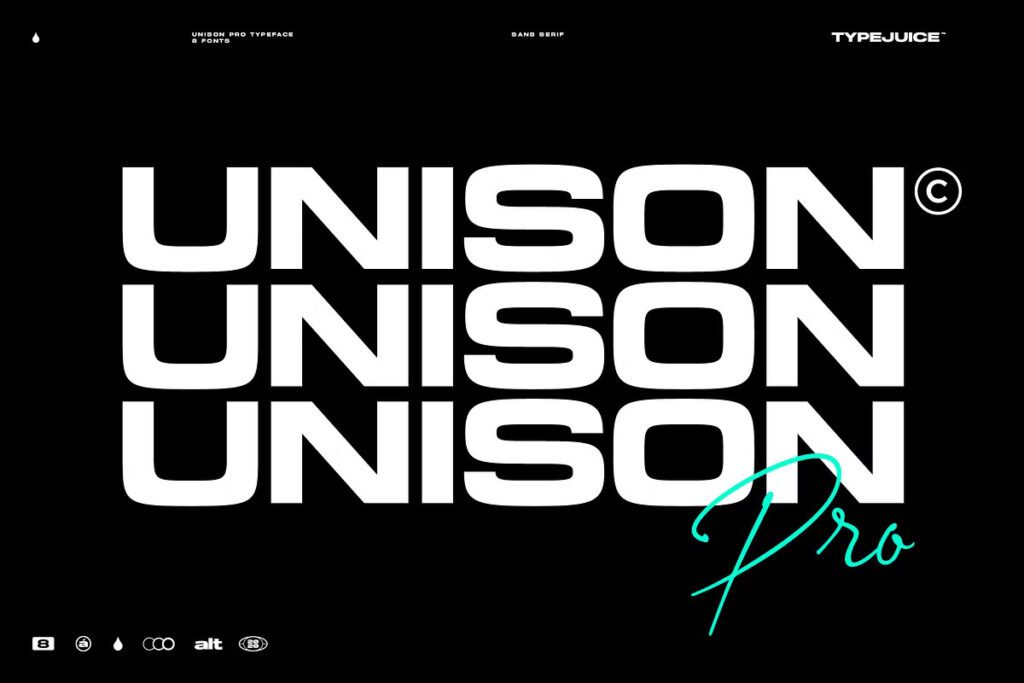
Unison Pro
A Unison Pro free download does not exist from any official source: Unison Pro is a commercial extended sans serif from the foundry Type Juice, designed by Matthew Messiha, and it is sold only with a paid licence. The several “Unison Pro Bold free download” pages that show up in search are not connected to the foundry.
Unison Pro specimen and verified specs
Unison Pro font specimen showing the alphabet and numerals
• Styles: 8 (Bold, Bold Italic, Bold Round, Bold Round Italic, Light, Light Italic, Light Round, Light Round Italic)
• Glyphs: 225
• Language support: Basic Latin (English), Western European
• OpenType features: kerning
• PUA-encoded extras: 11 glyphs (usable in Canva and Cricut)
• Designer: TypeJuice
• Case: All caps (lowercase keys type capitals)
All 8 styles of Unison Pro
Every style in the Unison Pro family
Unison Pro character set
Unison Pro character set (225 glyphs)
Design and character
Unison Pro is a low, very wide sans serif. In the specimens rendered from the licensed files, every capital is stretched horizontally, and the round letters are drawn as squared ovals: O, C, D and G have flat sides with rounded corners, a shape common in automotive, sports and tech logos. Stroke ends are cut straight, the R has a straight diagonal leg, and the zero is slashed, which keeps it from being confused with the O in codes and model numbers.
The most unusual character is the ampersand, drawn as a long, looping horizontal stroke rather than the usual compact figure. The type designer calls the capitals “stylised caps”, and in our copy the font is caps-only: the lowercase keys give the same capitals. The Bold weights are dense and very wide, while the Light weights are thin and airy, so the two ends of the family give quite different moods. MyFonts describes it as minimal and suited to headers, logos, posters and titles.
• 8 fonts: Light, Light Italic, Light Round, Light Round Italic, Bold, Bold Italic, Bold Round and Bold Round Italic
• Glyphs: the listings say over 1,700 glyphs; our copy has 225 in Light Round
That glyph gap is large. Our files may be an earlier build than the one now on sale, or the listing may count all eight fonts together, so if you need a specific character, check the listing preview or ask the seller. Creative Market shows the product created in February 2021; MyFonts lists its debut there as September 2021.
Our copy covers Basic Latin (English) and Western European languages. The listings only say “multilingual”, without naming languages, so test accented names before committing.
The only OpenType feature in the files is kerning, which adjusts spacing between specific letter pairs and runs automatically in almost every app, including Canva, Cricut Design Space, Word and the Adobe apps. There are no ligatures or stylistic sets to switch on.
Our copy does contain 11 glyphs mapped to the Private Use Area (PUA), code points outside the normal alphabet. You cannot type them, but you can copy them from Character Map on Windows or Font Book on a Mac and paste them into Canva, Cricut Design Space or any other app; they display correctly as long as the text is set in Unison Pro. Illustrator and InDesign users can also insert them from the Glyphs panel.
Best uses and font pairings
Unison Pro suits short, all-caps lines with room to spread: a logotype for a car, gaming or fitness brand, a poster title, a product name on packaging, or a website hero heading. The width eats space quickly, so it is a poor choice for long headlines, narrow columns or body text.
No. In our copy the lowercase keys produce the same capitals.
What is the difference between the Round and standard styles?
According to the listing, each style has a rounded version; the Round fonts soften the corners of the letters.
Who designed Unison Pro?
Matthew Messiha, published by Type Juice, a foundry founded in 2019 by a group of Canadian designers.